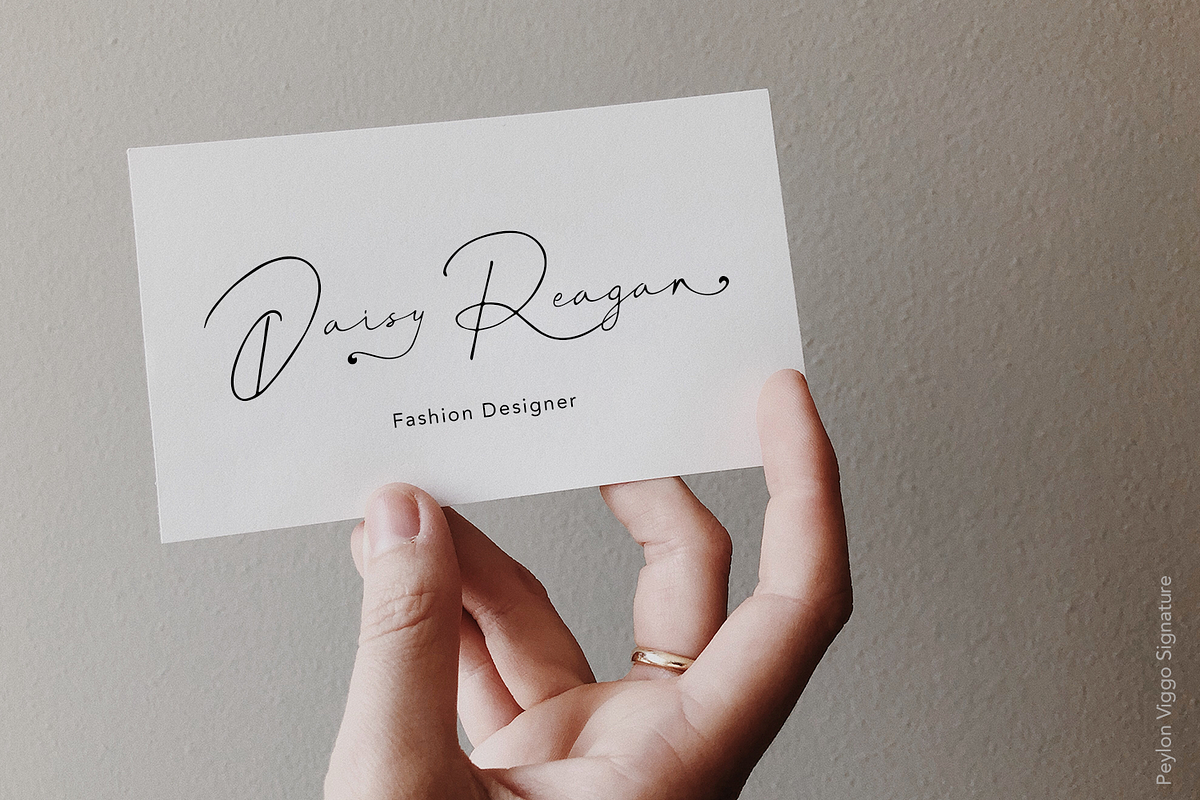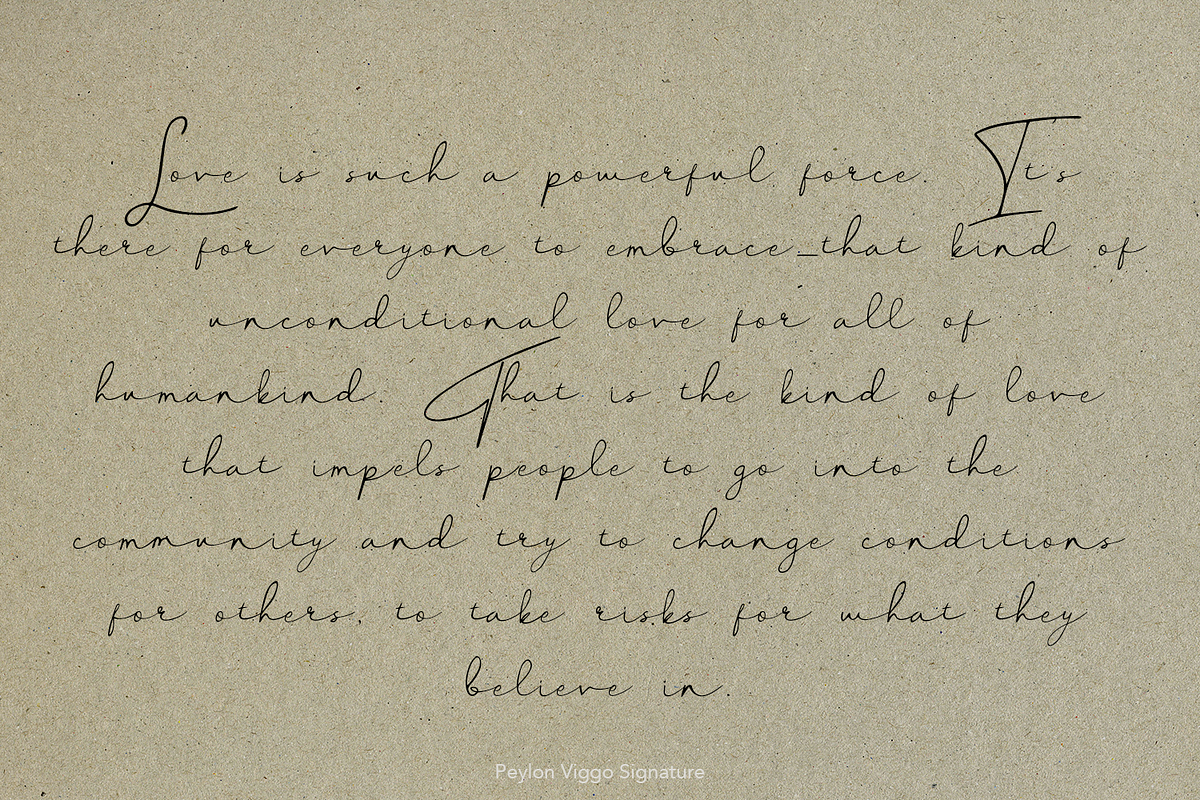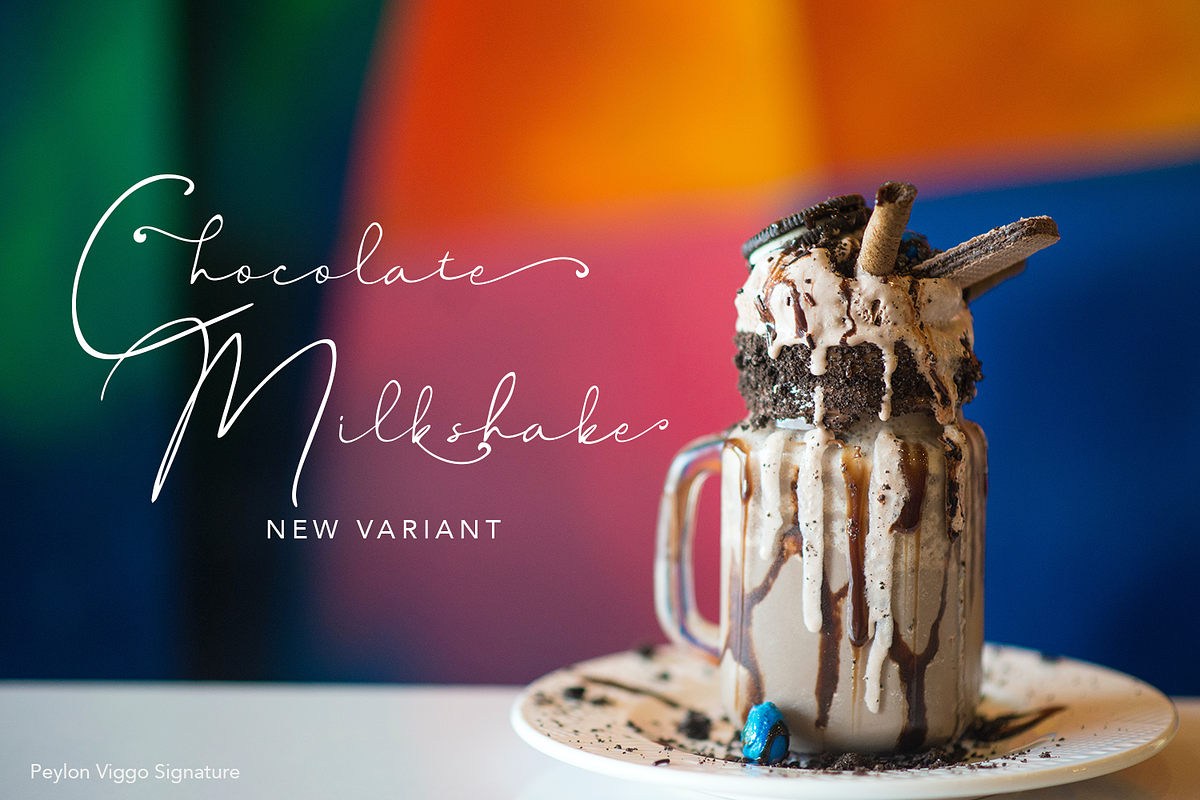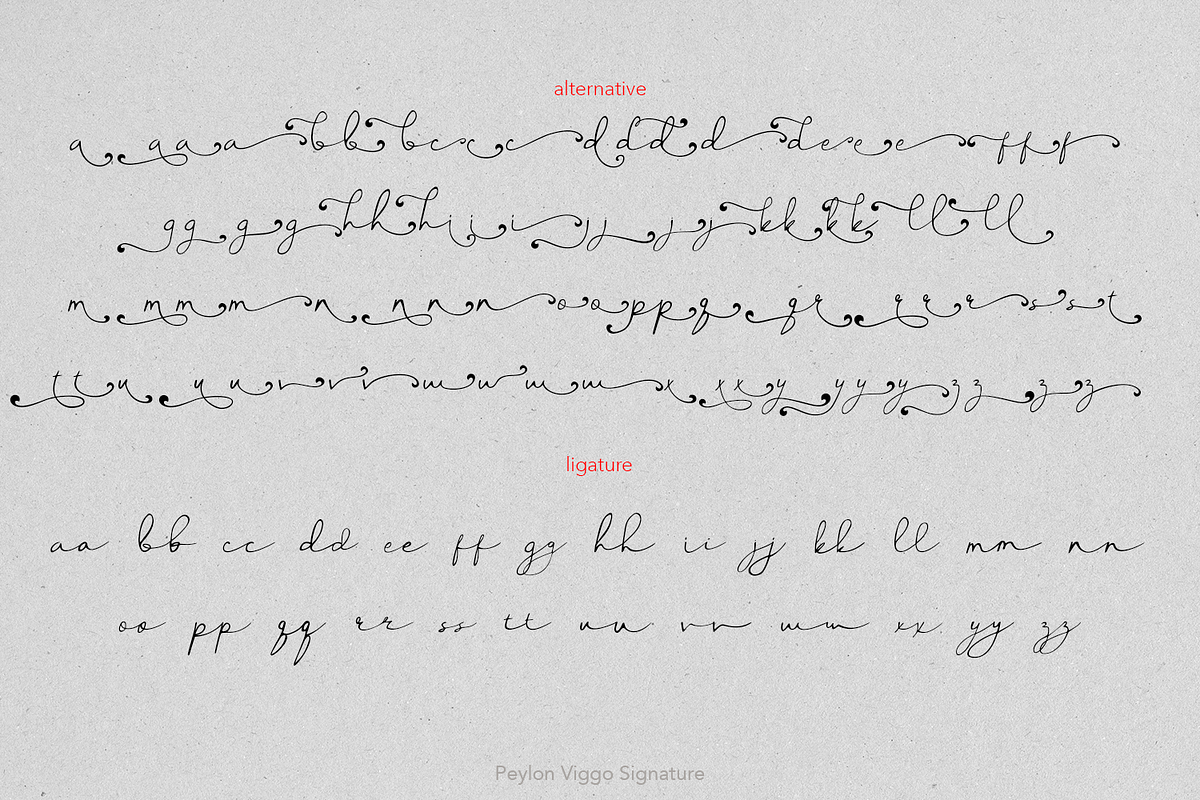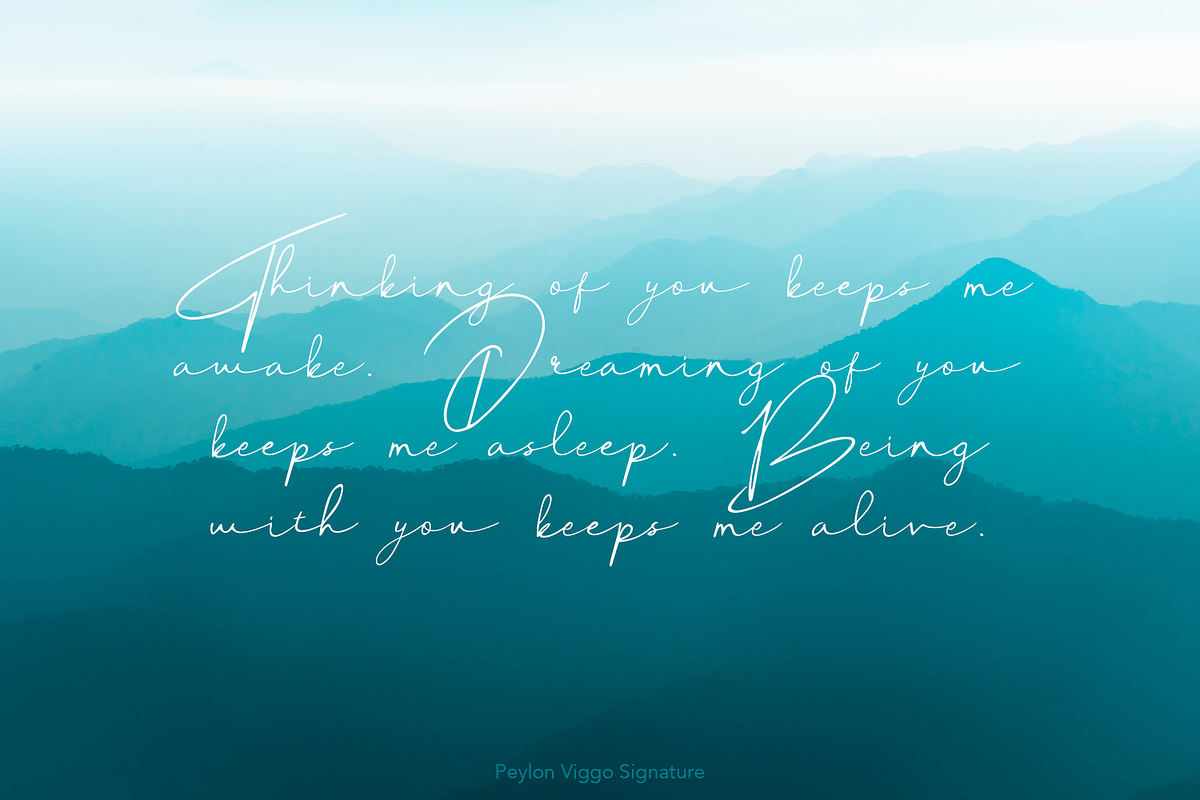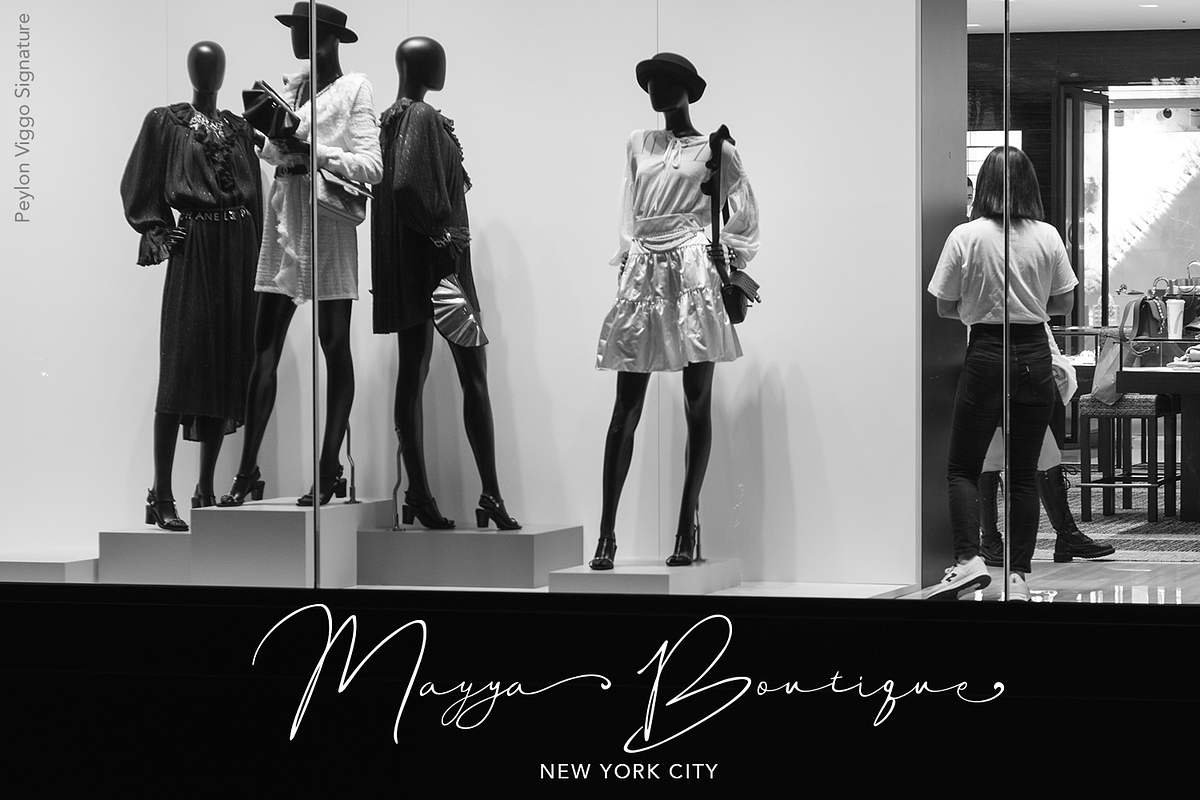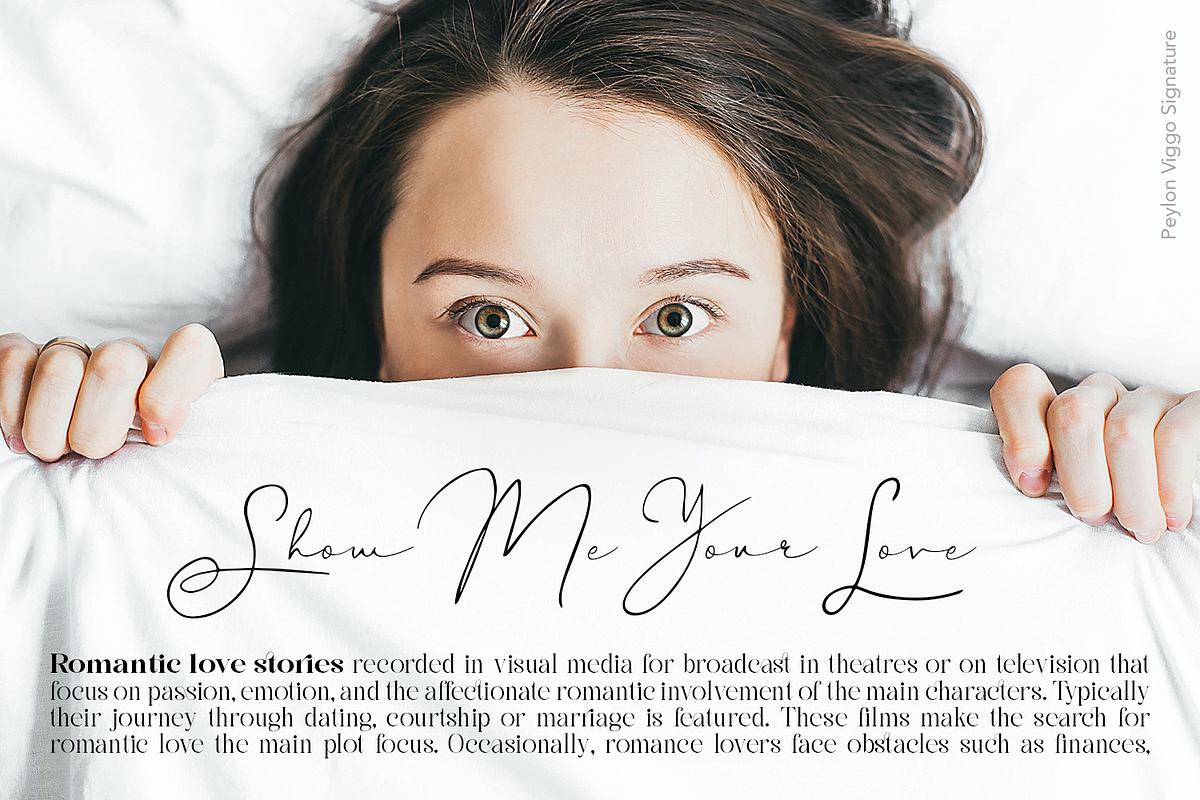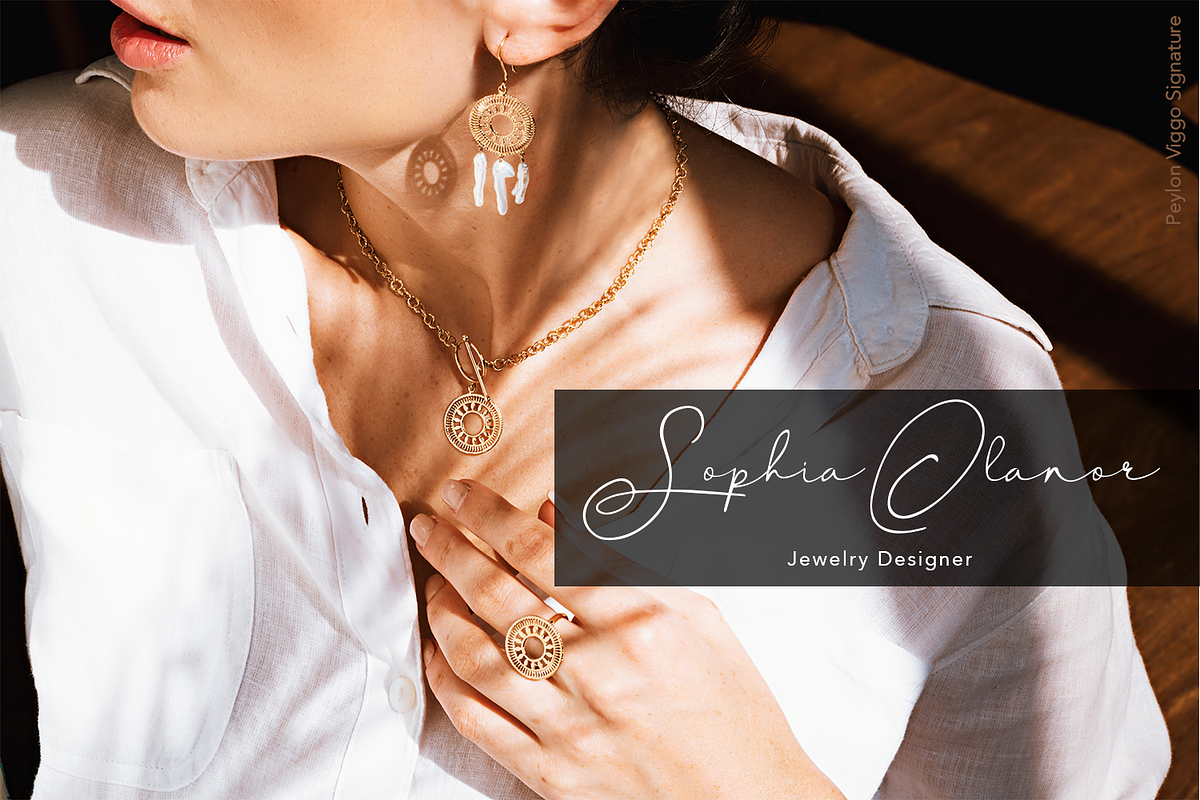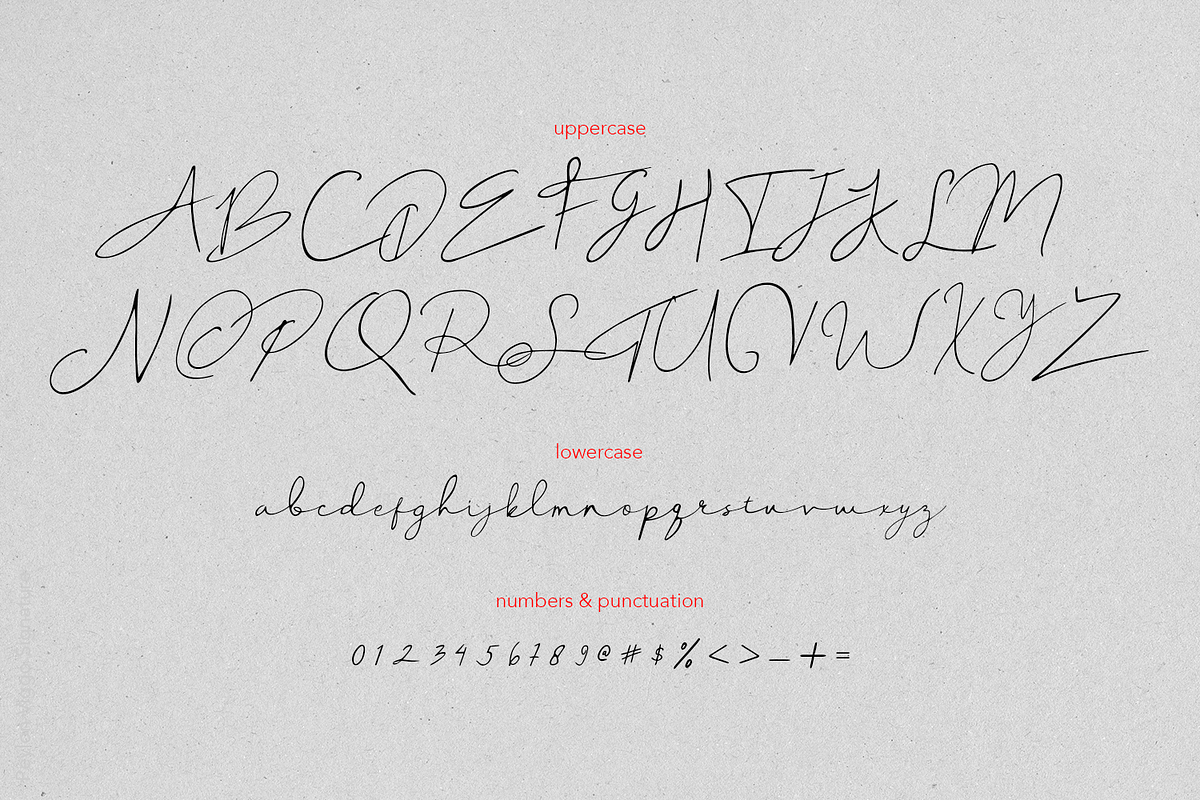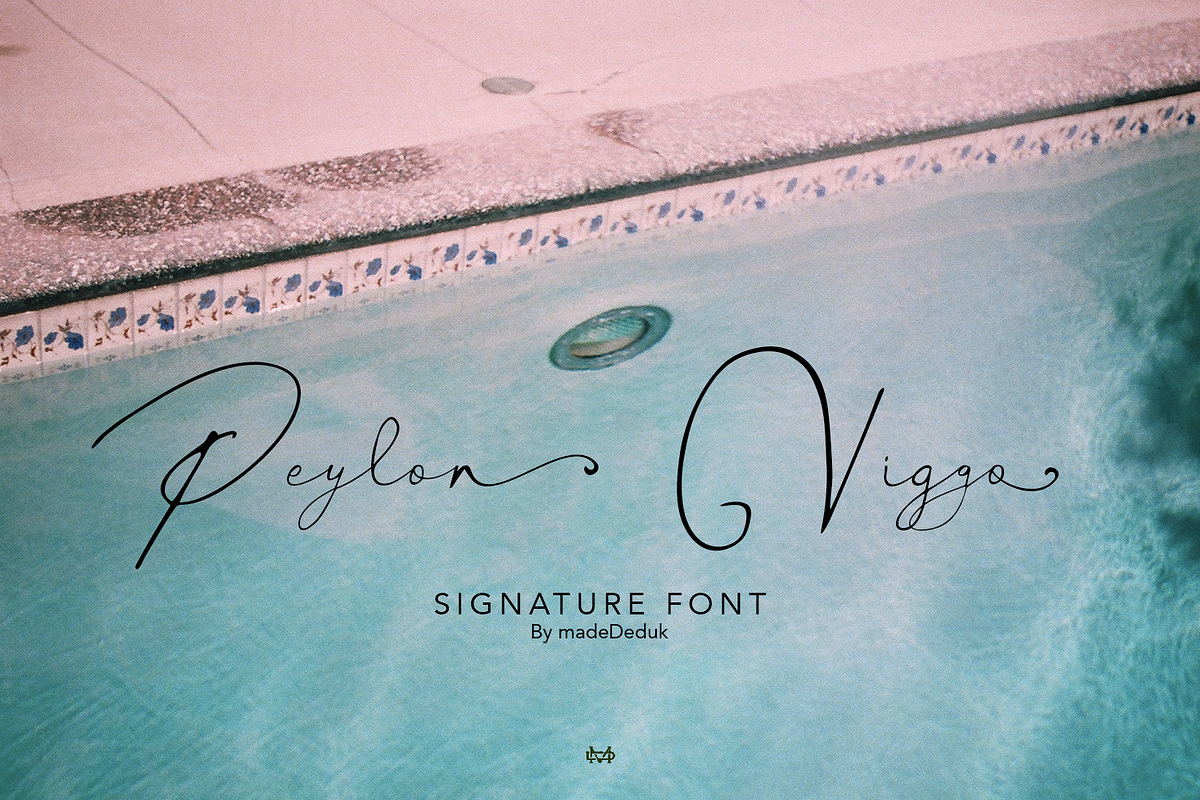
Peylon Viggo Signature
Really excited to introduce Peylon Viggo is gorgeous handmade signature font. Peylon Viggo signature includes alternative and ligatures to make everything look natural handmade signature.